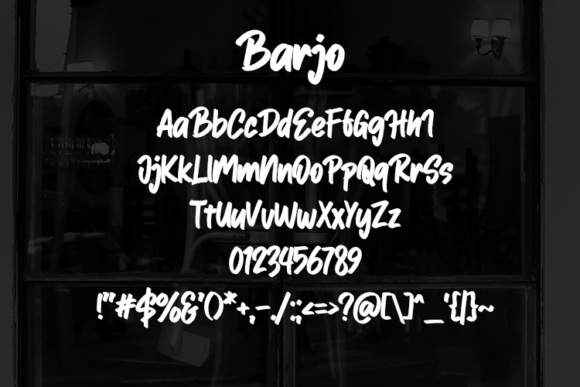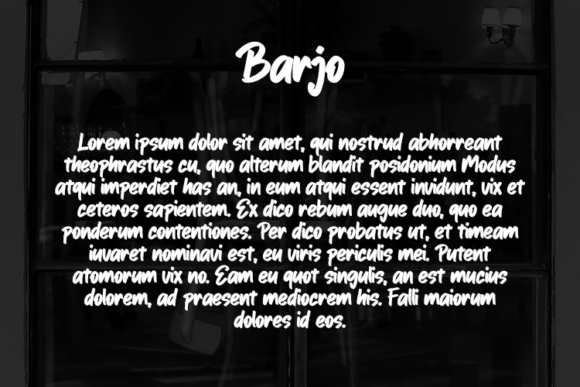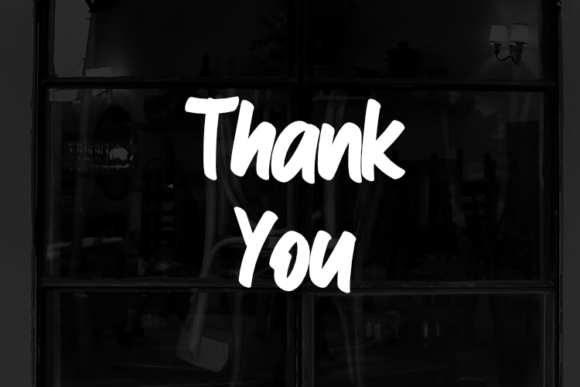
Introducing Barjo Font: Elevate Your Designs with Sleek Style
Are you tired of using the same old fonts for your clothing and product designs? Look no further than Barjo Font, a game-changing typeface that’s about to take your creations to the next level. With its sleek and modern style, Barjo is the perfect choice for designers and crafters looking to make a lasting impression.
The Versatility of Barjo Font
One of the standout features of Barjo Font is its incredible versatility. Whether you’re designing t-shirt emblazonments, product labels, or any other type of visual material, Barjo lends itself brilliantly to a wide range of applications. Its clean lines and contemporary aesthetic make it an excellent choice for:
- T-shirt designs and apparel
- Product labels and packaging
- Branding and advertising materials
- Digital graphics and social media assets
Effortless Compatibility and Application
Masterfully Crafted for Maximum Impact
Barjo Font is more than just a pretty face – it’s a masterfully crafted typeface designed to help you express your designs powerfully. With its sleek lines and modern aesthetic, Barjo is perfect for designers and crafters who want to create bold, eye-catching visuals that leave a lasting impression.
Whether you’re looking to create stunning t-shirt designs, eye-catching product labels, or any other type of visual material, Barjo Font is the perfect choice. Its unique blend of style and versatility makes it an essential addition to any designer’s toolkit.
Key Features of Barjo Font
- Sleek and modern design
- Versatile and compatible with a wide range of applications
- Perfect for designers and crafters looking to make a lasting impression
Get Ready to Elevate Your Designs with Barjo Font
If you’re ready to take your designs to the next level, look no further than Barjo Font. With its sleek style, versatility, and effortless compatibility, Barjo is the perfect choice for designers and crafters who want to create bold, eye-catching visuals that leave a lasting impression.